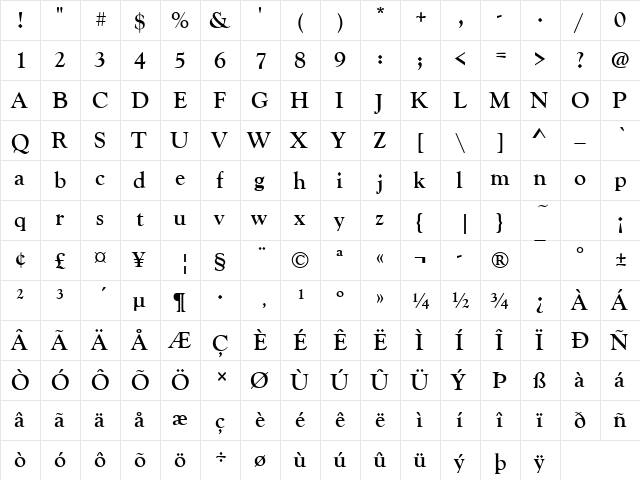
GoudyOldStyT Bold Font Preview
GoudyOldStyT Bold
Design Context for GoudyOldStyT Typeface
GoudyOldStyT is a composed and adaptable typeface that performs quietly and consistently across a wide range of design contexts. Its bold stroke weight gives it real presence on the page.